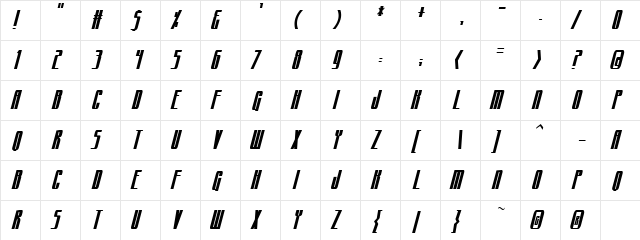
CraterFace Condensed BB Regular
Design Context for CraterFace Condensed BB Typeface
CraterFace Condensed BB takes a measured approach to typography — its balanced proportions and neutral character make it a reliable workhorse for both digital and print work. Its narrow stance lets it pack a punch even in space-constrained designs.